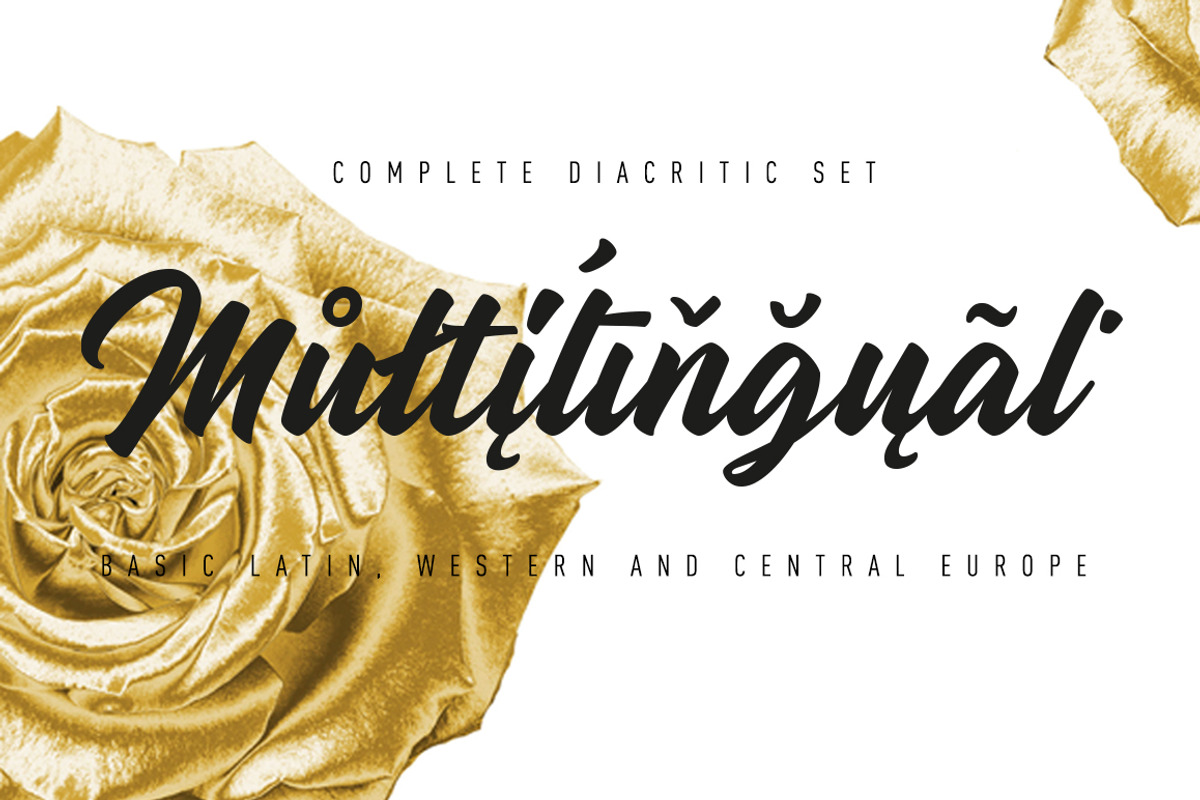
Madame is a back to basics script font. Yes… you can call her Madame!
Try it for any of your DIY projects, cards, posters, packaging, web design, photos, scrapbooking, or anything hidden in your creative mind!
The full commercial version includes a huge set of 62 alternates, contextual ligatures and underlining.